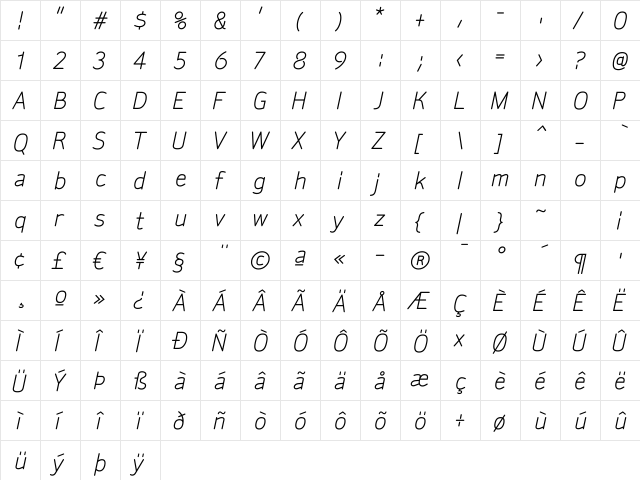
SylviaRegular Italic Regular
Design Context for SylviaRegular Italic Typeface
SylviaRegular Italic takes a measured approach to typography — its balanced proportions and neutral character make it a reliable workhorse for both digital and print work. Its italic angle brings a sense of urgency and motion to the letterforms.
Pro Tip: Use SylviaRegular Italic for emphasis, pull quotes, and subheadings where its slanted energy can add rhythm to the layout.